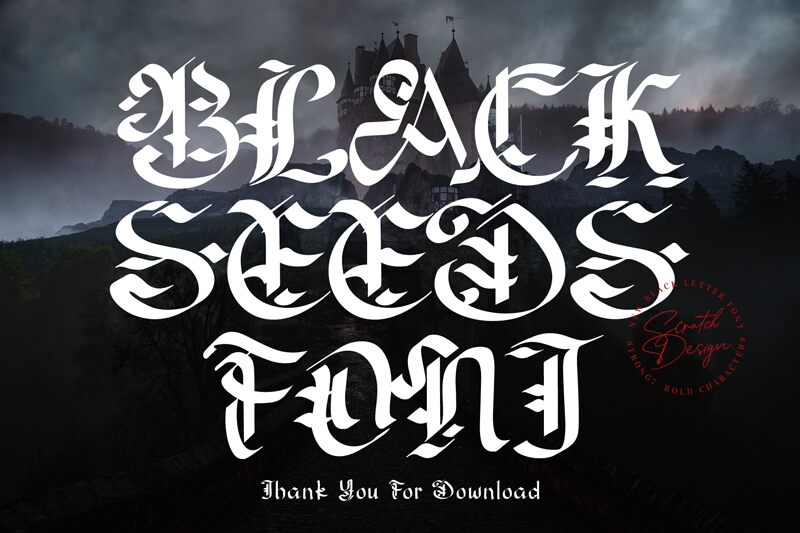
Blackseed by Scratch Design is a stunning gothic font that perfectly balances semi-light weight with boldness. With its intricate and unique design, Blackseed is perfect for creating eye-catching headlines, logos, and invitations that demand attention. Its versatility makes it suitable for a wide range of projects including album covers, apparel designs, and event promotions. Whether you're looking to add an edgy twist to your brand or give your designs a dark and mysterious vibe, Blackseed is the perfect semi-light font typeface to make a statement.